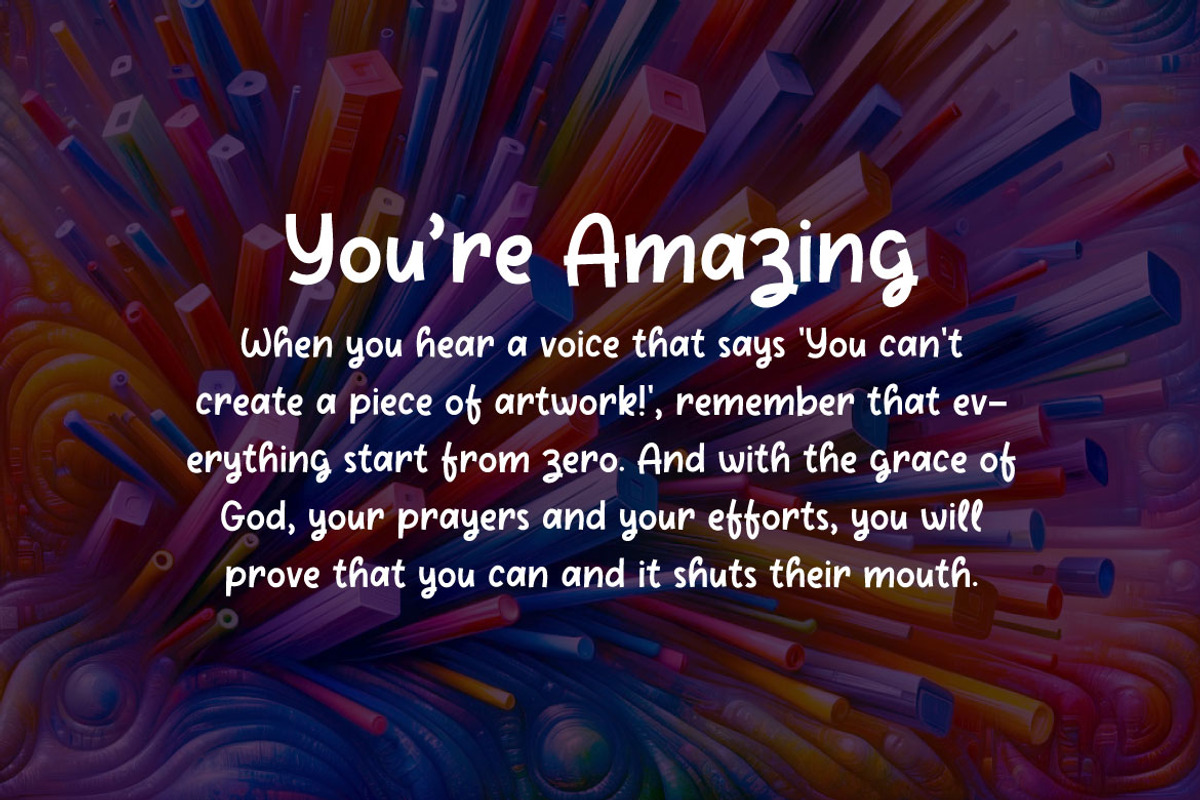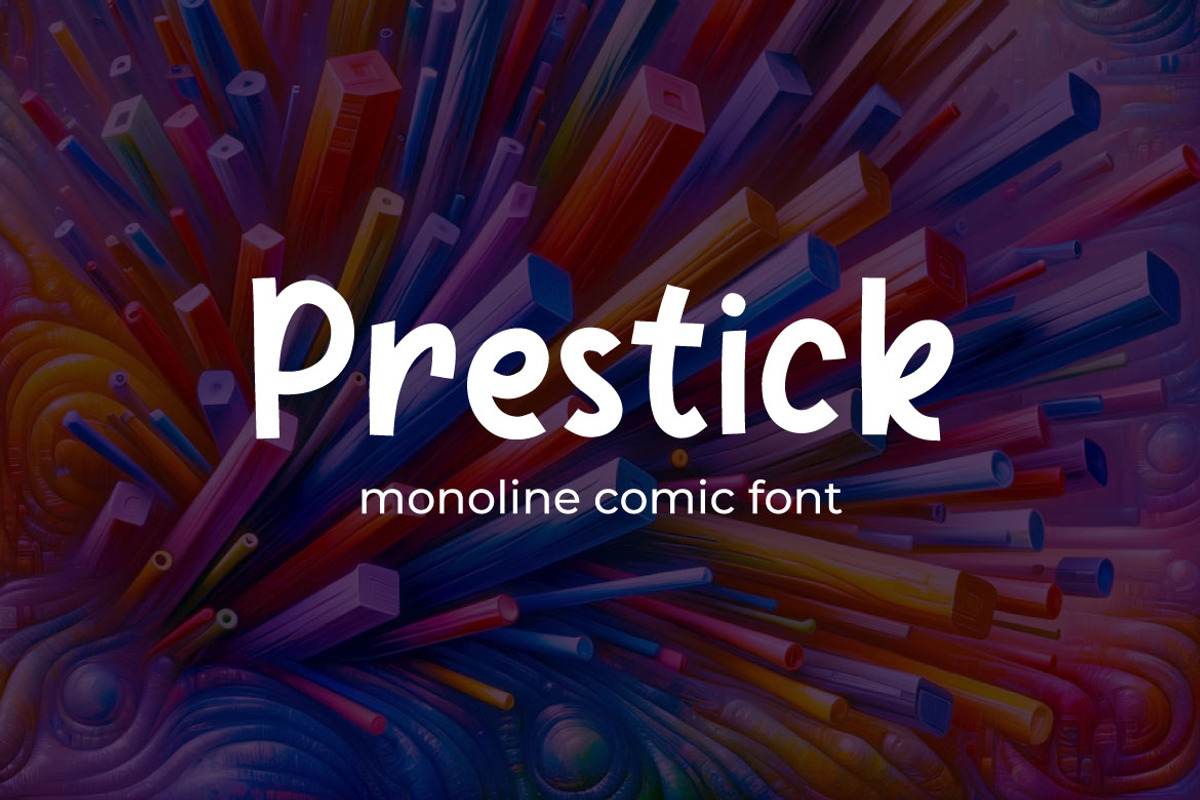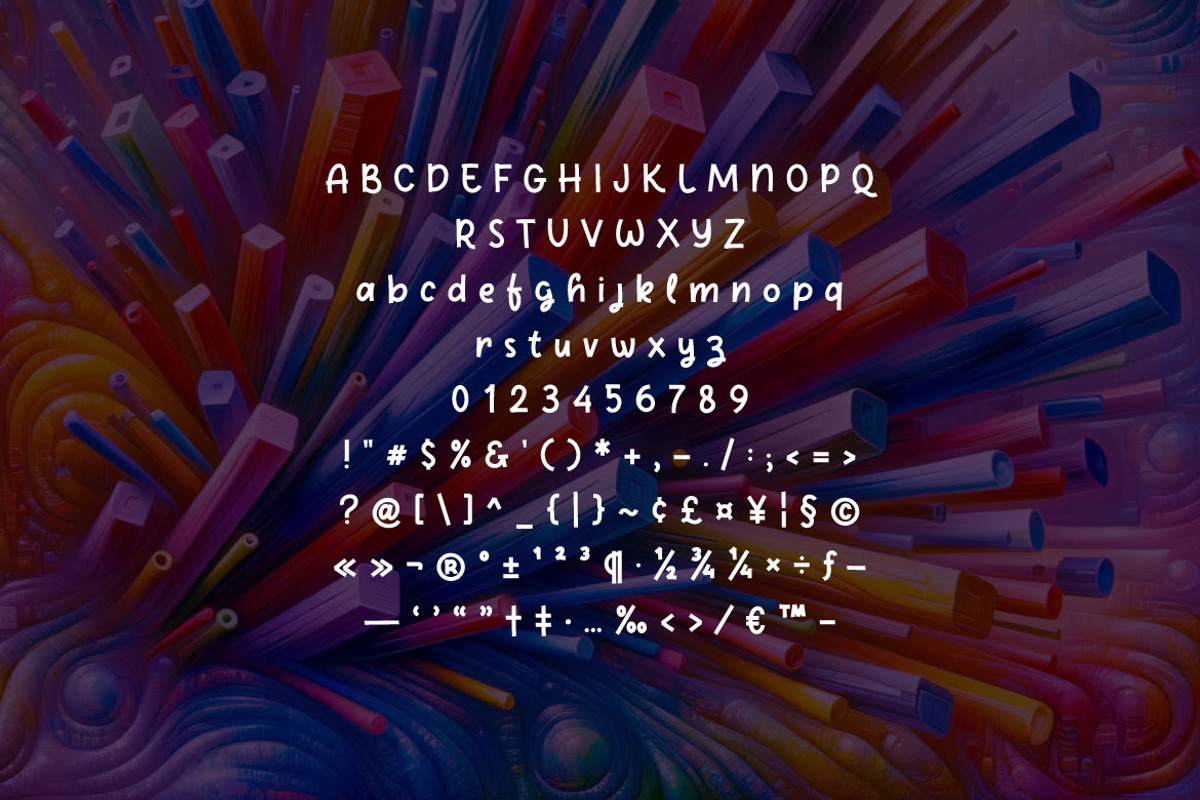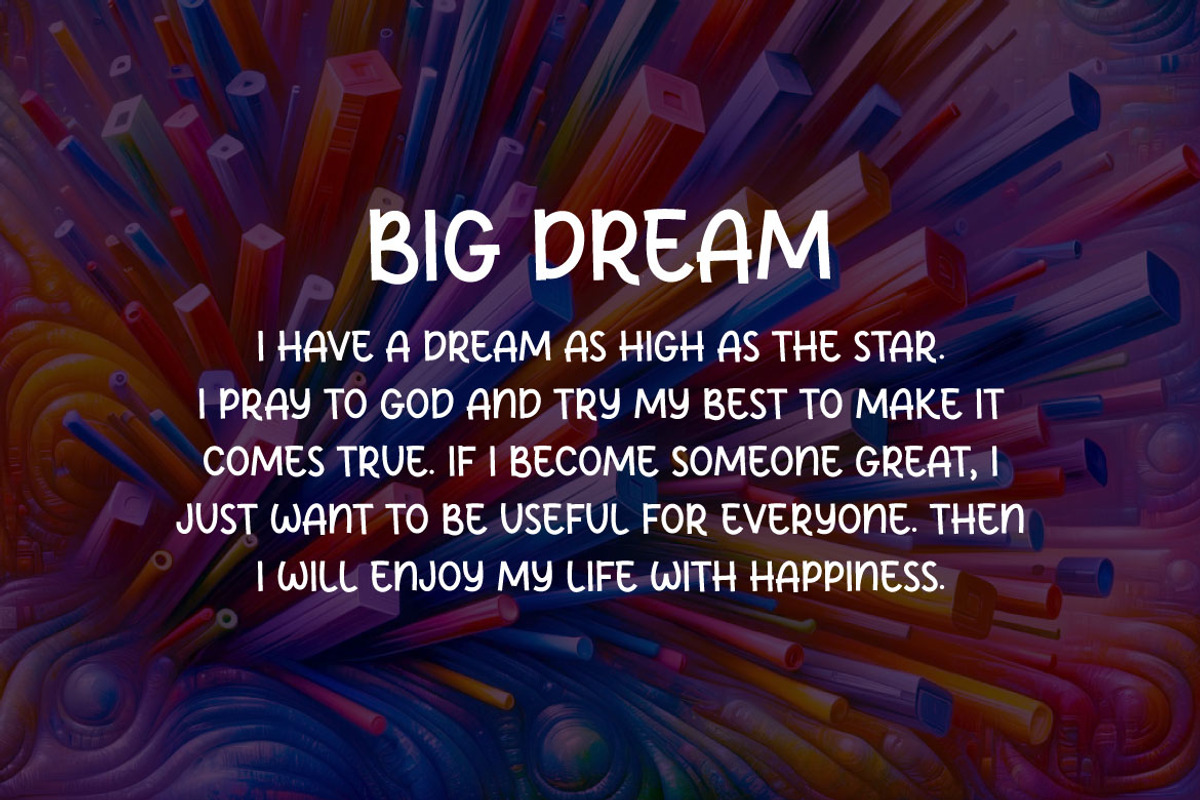
Prestick - Monoline Comic Font
Introducing Prestick, a unique monoline comic font that brings a fresh and playful vibe to your designs. This font features clean, consistent line widths that create a harmonious and modern look, making it perfect for a variety of creative projects. Prestick is ideal for comics, children's books, posters, and any design that needs a touch of fun and whimsy.
Prestick combines the simplicity of monoline design with the charm of comic art, making it a versatile and appealing choice for a wide range of projects. Its consistent line work and playful character make it a standout font that can elevate any design.